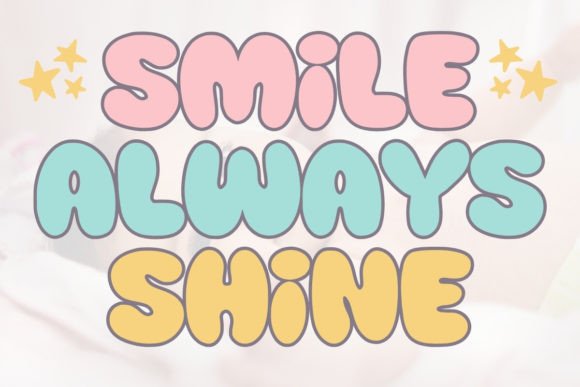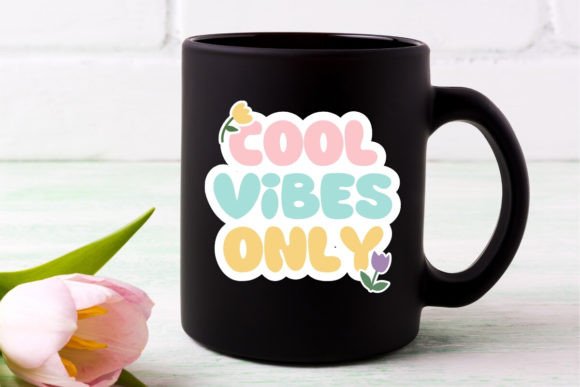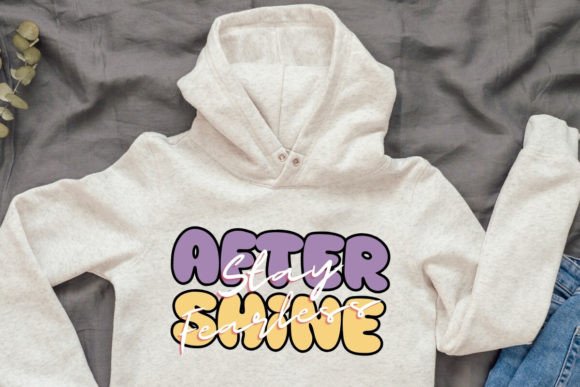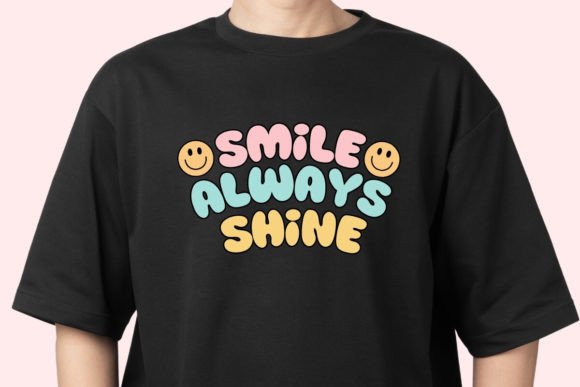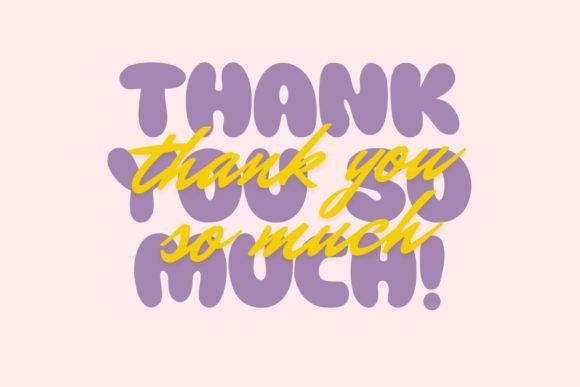
Baby Barbie Font: The Playful and Authentic Choice for Your Designs
Are you looking for a font that embodies playfulness and authenticity? Look no further than the Baby Barbie Font! This cute and unique bubble font is ideal for all designs, from blog posts and logos to branding, advertising, invitations, greeting cards, planners, photo albums, decorations, and more.
What is Baby Barbie Font?
Baby Barbie Font is a digital font designed to resemble the iconic and playful style of Barbie. The font features rounded and bubbly letters, making it perfect for designs that require a touch of whimsy and fun. The font is highly versatile and can be used for a wide range of projects, from personal to commercial.
Key Features of Baby Barbie Font
- Cute and Unique Design: The Baby Barbie Font features a one-of-a-kind design that is sure to make your designs stand out.
- Bubble Font Style: The font’s bubble style gives it a playful and carefree feel, perfect for designs that require a touch of fun.
- Highly Versatile: The font can be used for a wide range of projects, from digital designs to print materials.
- Easily Readable: Despite its playful design, the font is easily readable, making it perfect for body text and headlines.
Why Choose Baby Barbie Font?
So, why choose Baby Barbie Font for your designs? Here are just a few reasons:
- Playfulness: The font’s playful design is sure to add a touch of whimsy to your designs.
- Authenticity: The font’s unique design makes it a great choice for designers looking to add a personal touch to their work.
- Flexibility: The font can be used for a wide range of projects, from digital designs to print materials.
How to Use Baby Barbie Font
Using Baby Barbie Font is easy! Here are a few tips to get you started:
- Pair it with Other Fonts: Pair Baby Barbie Font with other fonts to create a unique and interesting design.
- Use it for Headlines: The font’s playful design makes it perfect for headlines and titles.
- Add it to Your Designs: Add Baby Barbie Font to your designs to give them a touch of whimsy and fun.
Baby Barbie Font is perfect for designers and crafters looking to add a touch of playfulness and authenticity to their work. Whether you’re creating digital designs or print materials, this font is sure to be a great addition to your toolkit.
Ideas for Using Baby Barbie Font
- Blog Posts: Use Baby Barbie Font to add a touch of whimsy to your blog posts.
- Logos and Branding: Use the font to create a unique and memorable logo for your brand.
- Advertising: Use the font to create eye-catching ads that are sure to grab attention.
- Invitations and Greeting Cards: Use the font to create playful and fun invitations and greeting cards.
- Planners and Photo Albums: Use the font to add a touch of personality to your planners and photo albums.
- Decorations: Use the font to create fun and playful decorations for parties and special events.
In conclusion, Baby Barbie Font is a cute and unique bubble font that is perfect for designers and crafters looking to add a touch of playfulness and authenticity to their work. With its highly versatile design and easily readable style, this font is sure to be a great addition to your toolkit. So why wait? Add Baby Barbie Font to your designs today and enjoy the results!